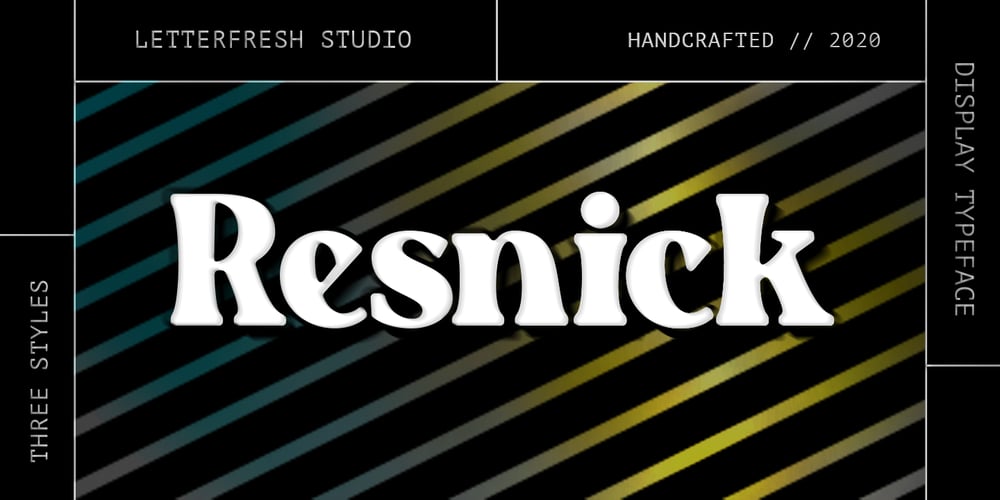
Resnick
Resnick font
Resnick Font Family was designed by Rizki Andika and published by Letterfreshstudio. Resnick contains 3 styles and family package options. Resnick is a Display typeface that is luxuriously bold and bold in style specifically for strong use, with a versatile touch. Consists of 3 styles, Regular, Outline, Extrude, and Outline Extrude and is very suitable for all medium or large uses because of the exact line shape, which made by flying machines. It is suitable for graphic design and screen use whatever your project is like branding, magazines, editorials, wedding invitations, logo design, posters, social media, and more! Also supports multilingual and PUA encoded!Feature UPPERCASE lowercase Number & Symbol International Glyphs Ligatures